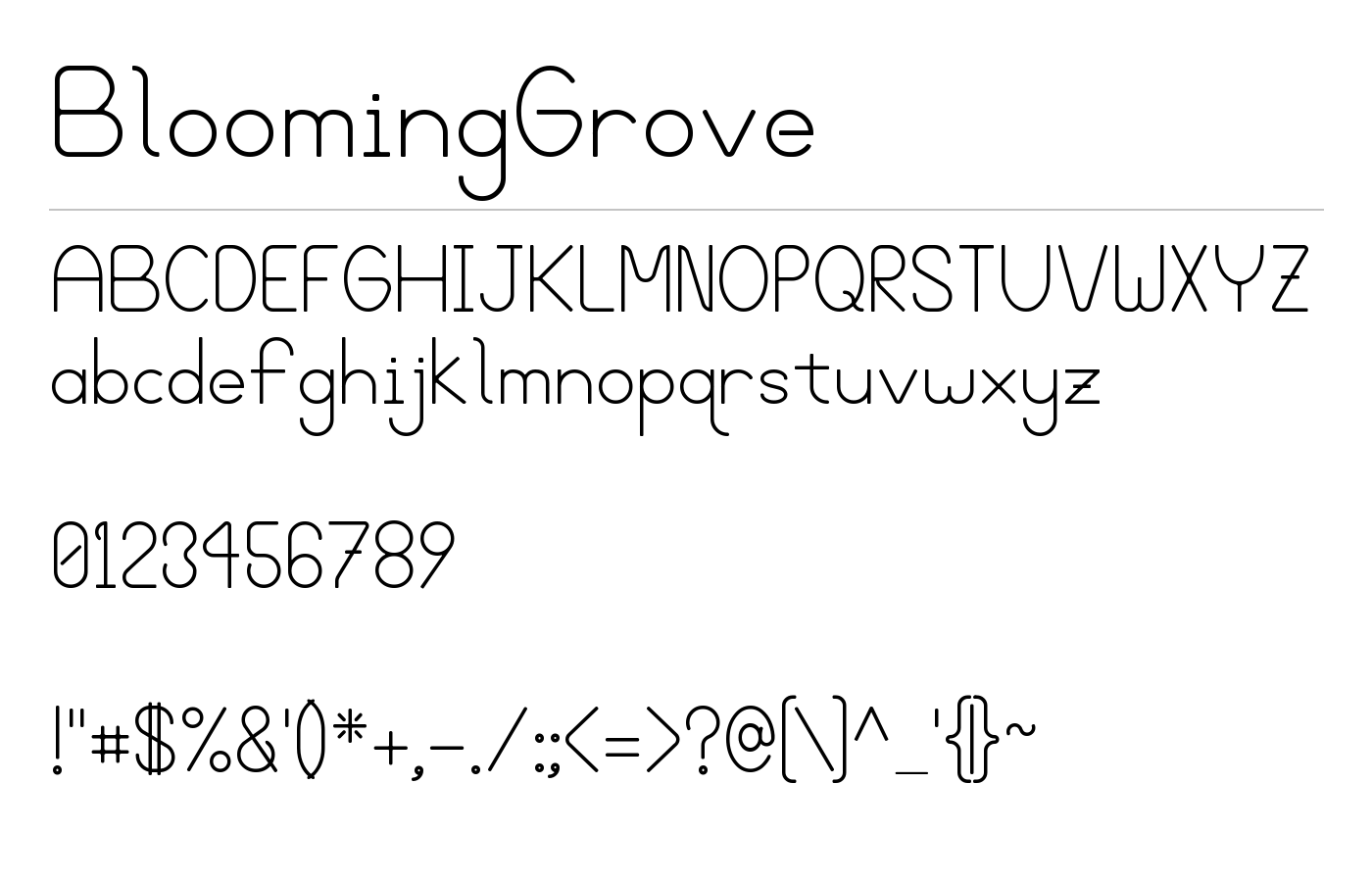
BloomingGrove is a delicate, narrow sans serif font with a modern, geometric feel and graceful rounded terminals that add a touch of softness. Its clean lines and single-story letterforms give it a friendly, approachable style perfect for creative branding, editorial headlines, and contemporary digital designs. The font’s light weight and airy spacing make it ideal for projects seeking a sleek yet warm appearance.
BloomingGrove Font
About BloomingGrove Font